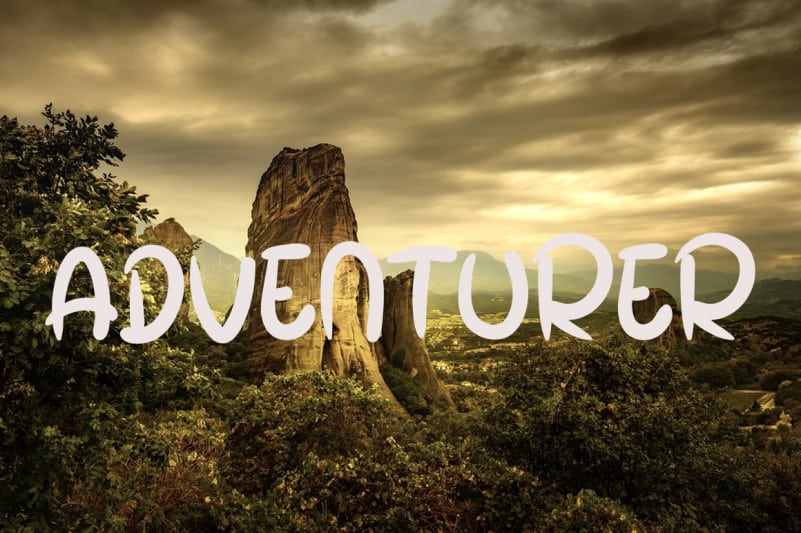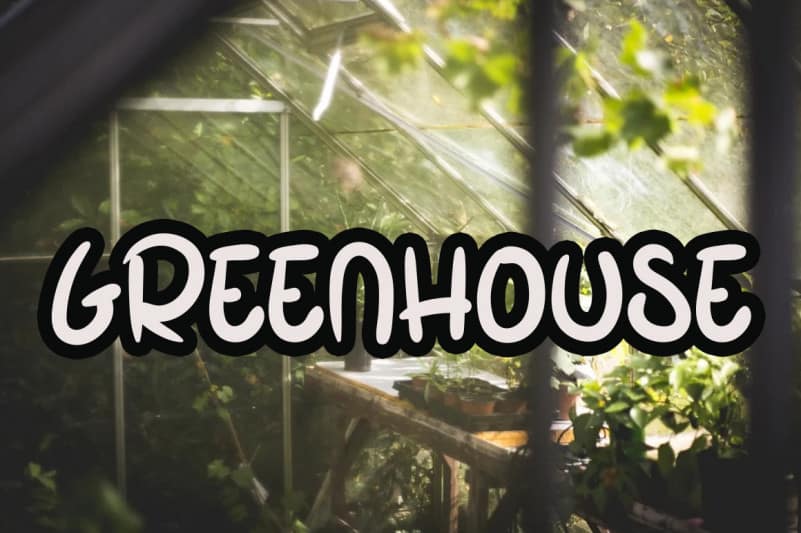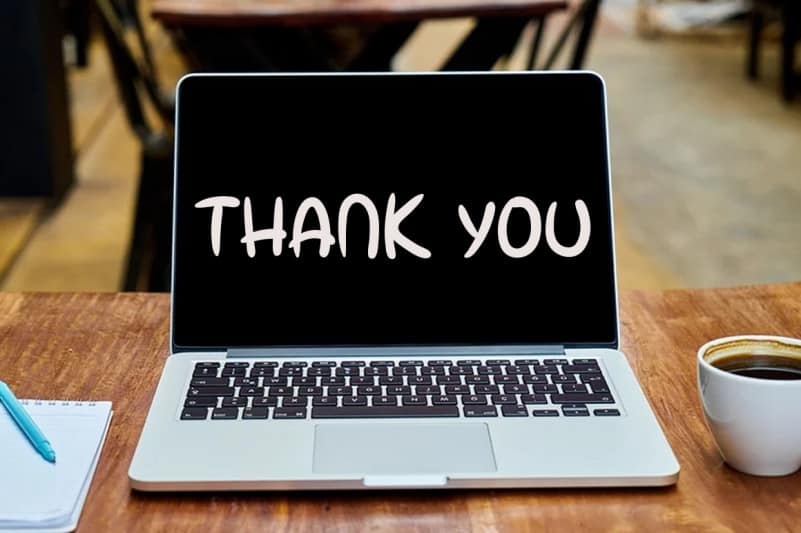
Thumb Display Font
Thumb Display Font is a simple, thick and trendy display font. Whether you are using it for cartoon-related designs, children’s games, quotes, titles, brand names, book covers, posters, or just any creation that requires a touch of beauty, this font is a great choice.
Thumb Display Font is a very talented product for you to use,
Latest letters that can be used for various products, invitations, wall hangings, weddings, and more.